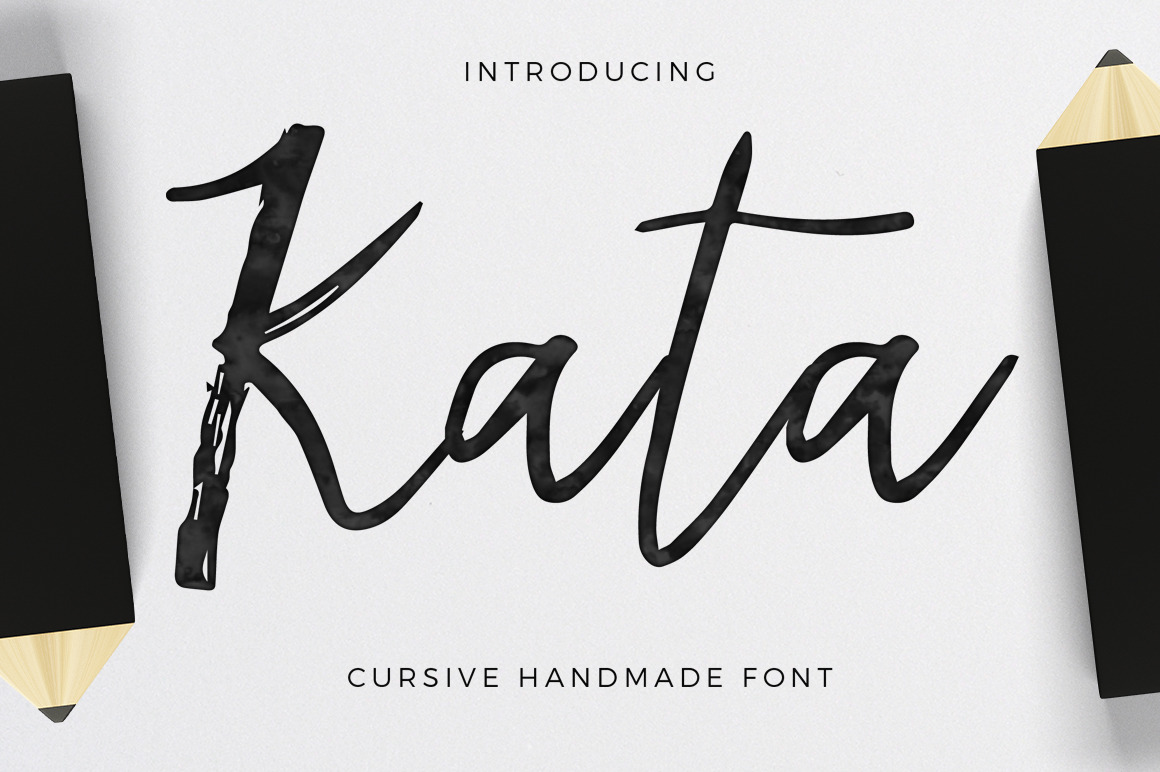
Kata!- cursive handmade font
KATA - CURSIVE HANDMADE FONT
This time i present to you 'Kata' a cursive hanmade font perfect for all your desires. A really elegant and femenine lettering that will allow you to create the most beautiful logos, brands, merchandise, wedding invitations, overlays, presentations, anything you can imagine!
- Caps have a dry brush style
- It has latin/hispanic characters ( ¡Viva el poder de la ñ! )
- Don't look around no more, this is the perfect font for that elegand design you have in mind